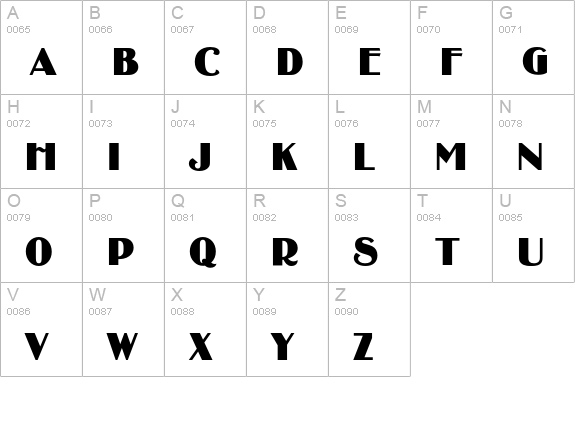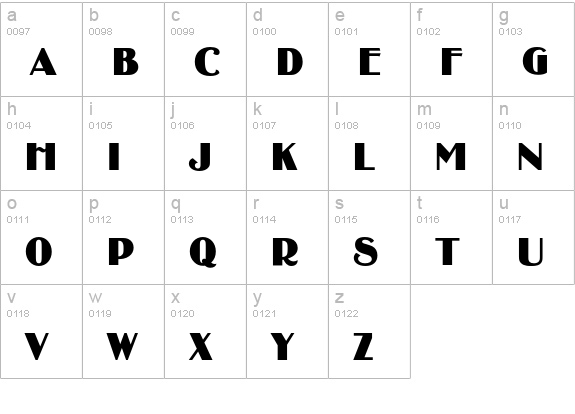
BinnerEF font is a beautifully crafted typeface that combines elegance with a touch of modernity. Its sleek lines and clean curves make it perfect for a wide range of design projects, from branding to editorial design. The font's versatility allows it to be used in various settings, making it a must-have for any designer looking to add a touch of sophistication to their work. What sets BinnerEF font apart is its unique blend of classic and contemporary elements, making it stand out from the crowd. Whether you're creating a logo, designing a website, or working on a print project, this font is sure to make a statement. The best part? BinnerEF font is completely free to download at FontsMarket.com. So go ahead and add this stylish typeface to your collection today and elevate your designs to the next level.